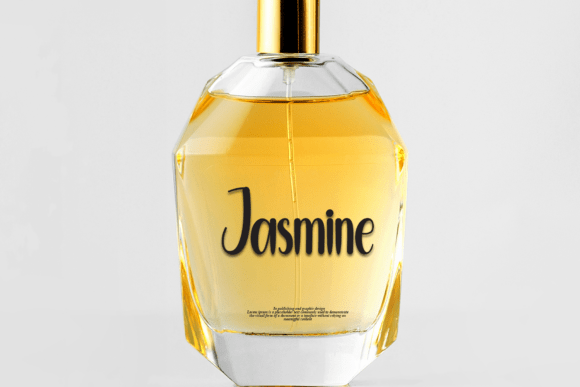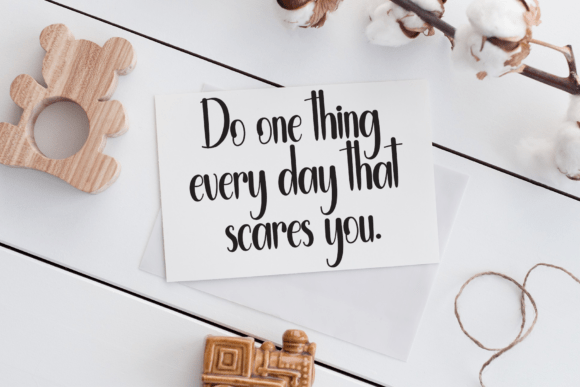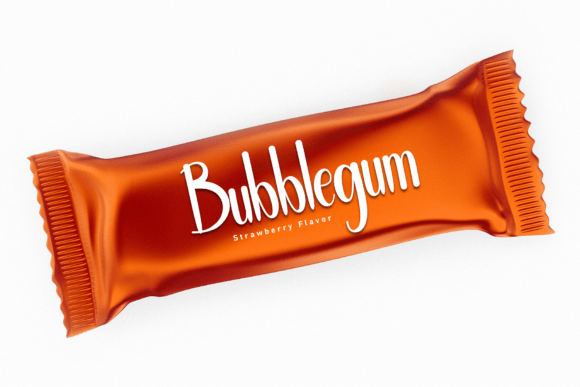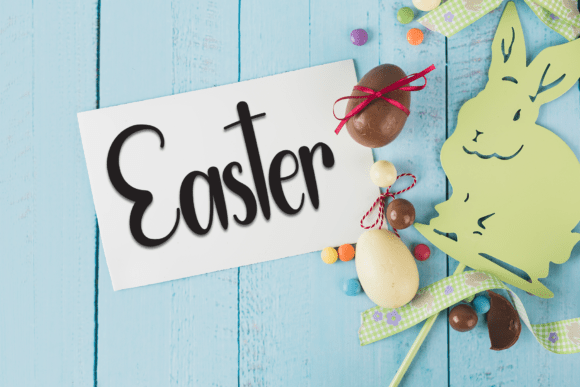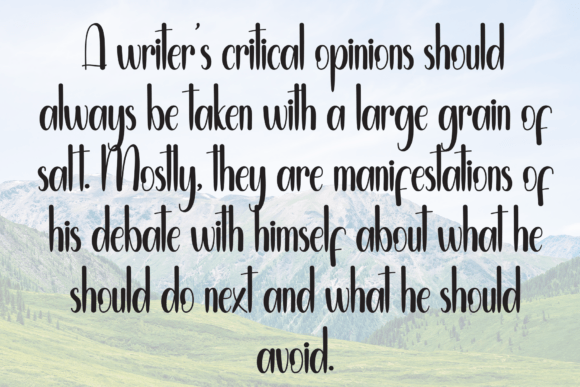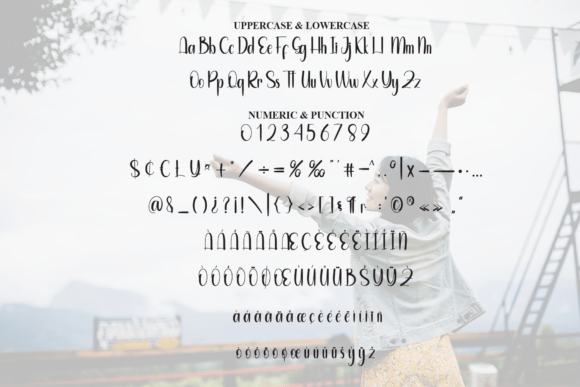
Introducing Happy Yesterday Font: The Perfect Blend of Elegance and Playfulness
In the world of typography, fonts play a crucial role in conveying the tone and personality of a brand, project, or design. For designers and crafters, finding the right font can be a daunting task. However, if you’re looking for a stylish and versatile font that can add a personal touch to your creations, look no further than Happy Yesterday Font. This beautiful handwritten script font is designed to capture the essence of elegance and playfulness, making it perfect for a wide range of applications.
The Characteristics of Happy Yesterday Font
Happy Yesterday Font is a stunning example of a handwritten script font that exudes sophistication and charm. Its flowing curves and natural rhythm give it a unique and organic feel, reminiscent of handwritten text. The font’s design is characterized by:
- Flowing curves: Happy Yesterday Font features smooth, flowing curves that give it a sense of movement and fluidity.
- Natural rhythm: The font’s natural rhythm makes it feel like it was written by hand, adding a personal touch to any design.
- Elegant strokes: Each stroke of the font is carefully crafted to convey a sense of elegance and sophistication.
- Playful undertones: Despite its elegant design, Happy Yesterday Font also has a playful side, making it perfect for designs that require a touch of whimsy.
Uses of Happy Yesterday Font
Happy Yesterday Font is an incredibly versatile font that can be used in a wide range of applications, including:
- Invitations: Add a personal touch to your wedding invitations, birthday party invites, or any other special occasion with Happy Yesterday Font.
- Branding: Use Happy Yesterday Font to create a unique and memorable brand identity that stands out from the crowd.
- Social media: Add a touch of elegance and sophistication to your social media posts, stories, and graphics with Happy Yesterday Font.
- Packaging: Use Happy Yesterday Font to create eye-catching packaging that reflects your brand’s personality.
Why Choose Happy Yesterday Font?
With so many fonts available, why choose Happy Yesterday Font? Here are just a few reasons why designers and crafters love this font:
- Unique design: Happy Yesterday Font has a unique design that sets it apart from other fonts.
- Easy to read: Despite its elegant design, Happy Yesterday Font is easy to read, making it perfect for body text and headlines.
- Customizable: Happy Yesterday Font can be customized to fit your design needs, making it perfect for a wide range of applications.
Tips for Using Happy Yesterday Font
To get the most out of Happy Yesterday Font, here are a few tips to keep in mind:
- Pair it with a sans-serif font: Pair Happy Yesterday Font with a sans-serif font to create a beautiful contrast.
- Use it for headlines: Happy Yesterday Font is perfect for headlines and titles, where its elegant design can shine.
- Experiment with colors: Don’t be afraid to experiment with different colors to find the perfect match for your design.
In conclusion, Happy Yesterday Font is a stylish and versatile font that can add a personal touch to any design. Its elegant design, flowing curves, and natural rhythm make it perfect for a wide range of applications, from invitations and branding to social media and packaging. With its unique design, ease of use, and excellent support, Happy Yesterday Font is a must-have for designers and crafters looking to elevate their designs.